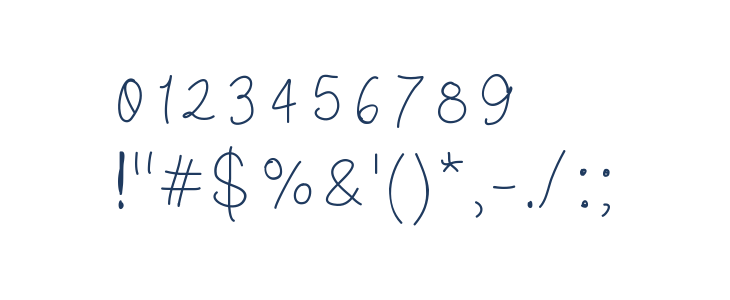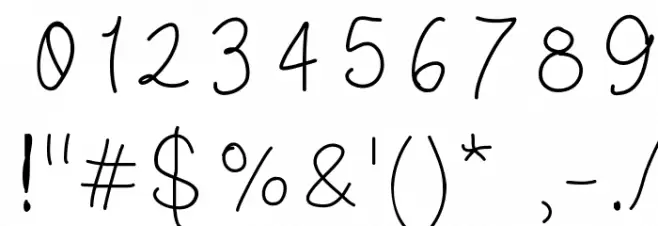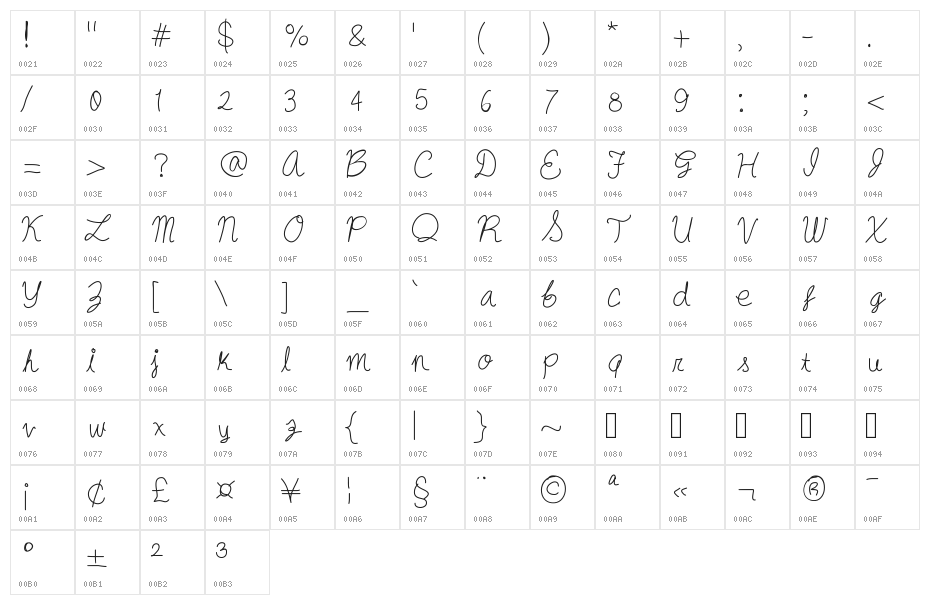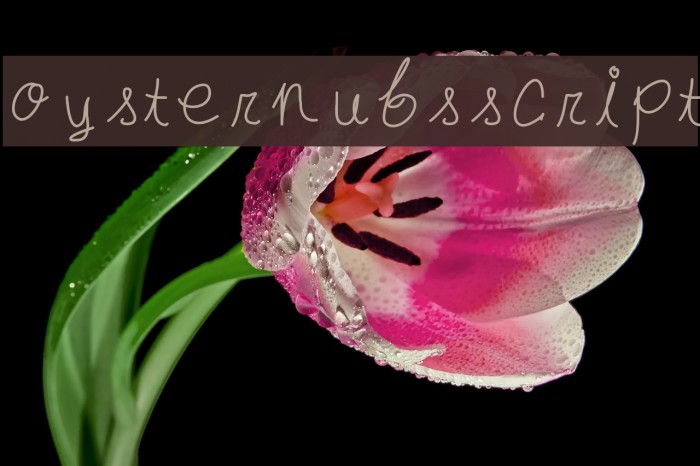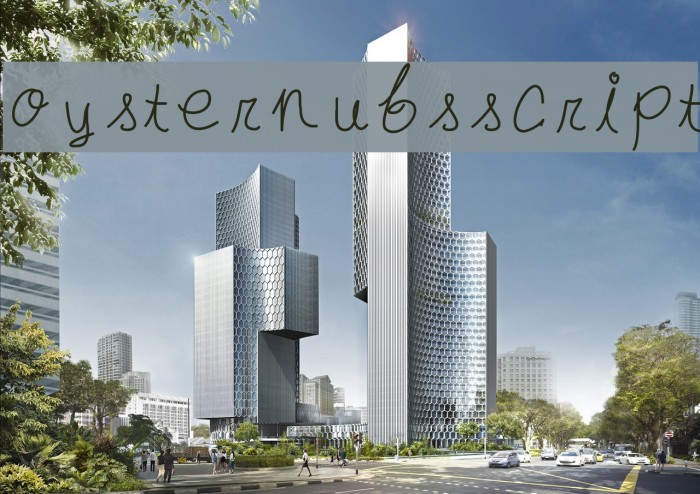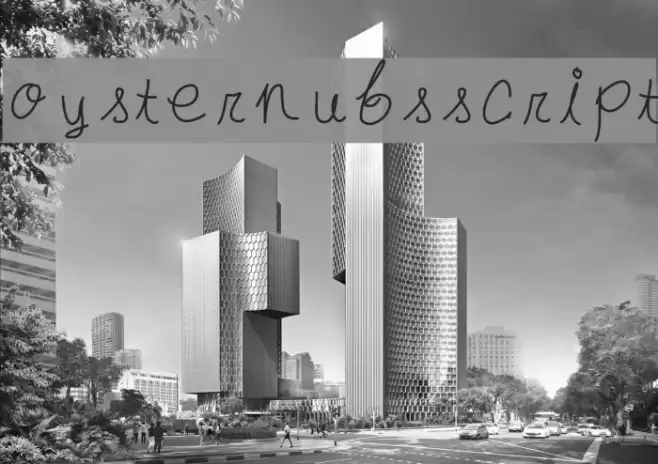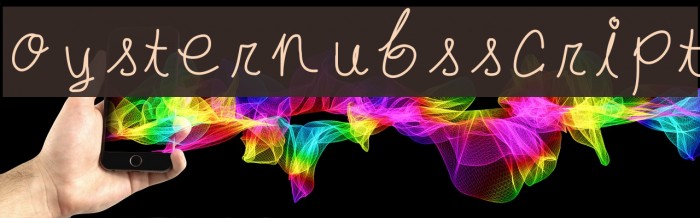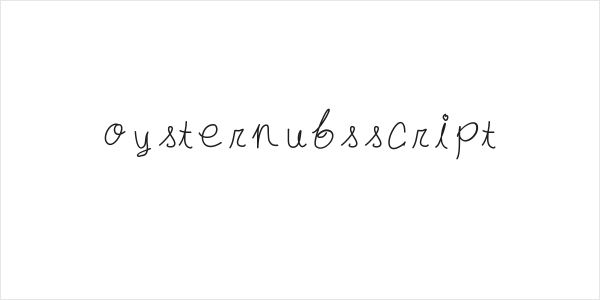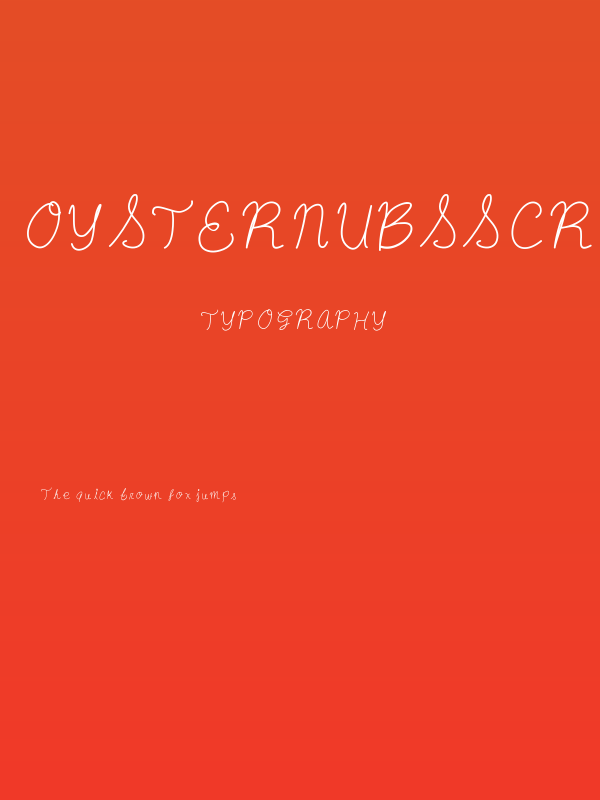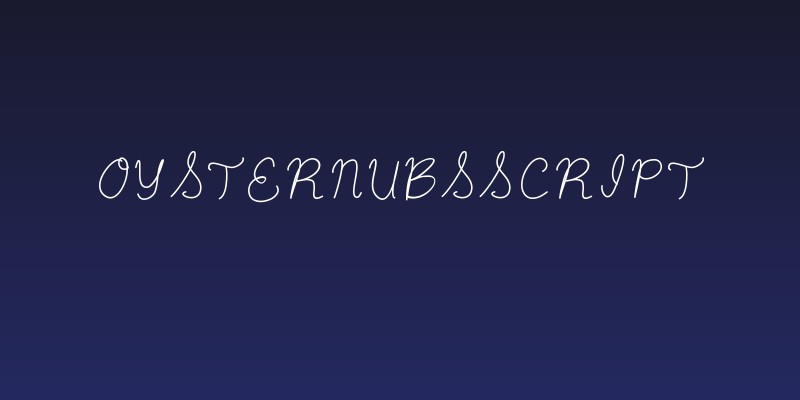
oysternubsscript Font
oysternubsscript Description
This script font exudes a playful and whimsical charm, characterized by its fluid, cursive strokes that mimic the natural flow of handwriting. The uppercase letters are elegantly looped and slightly slanted, giving a sense of movement and grace. The lowercase letters maintain a consistent style, with smooth curves and a slight bounce that adds to the font's lively personality. The numerals are distinct and easy to read, while the special characters are thoughtfully designed to match the overall aesthetic. This font is perfect for projects that require a personal touch, such as invitations, greeting cards, and creative branding.